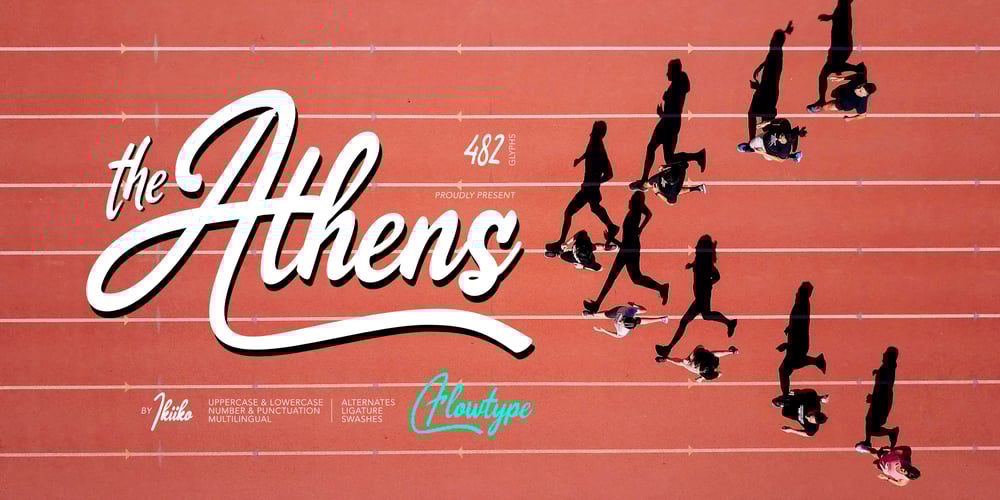
Athens Font Family was designed by Wahyu Eka Prasetya, Andhika Pradana and published by IKIIKOWRK. Athens contains 1 styles and family package options. Introducing The Athens – Flowtype, created by ikiiko.The Athens is inspired by the ropes in the runner’s finish line. The letters are script fonts with a flexible and wavy style. This font have a unique waveform and has a large selection of stylistic sets. This typeface is perfect for an magazine cover, flyer design, poster design, inspirational quotes, photography layout, and also good for vintage product, or simply as a stylish text overlay to any background image.What’s included? Uppercase & Lowercase Number & Punctuation Alternates & Stylistic Swashes Multilingual Support Get also a good offer & FREEBIE at our site : www.ikiiko.comEnjoy our font and if you have any questions, you can contact us by email : ikiikowrk@gmail.com